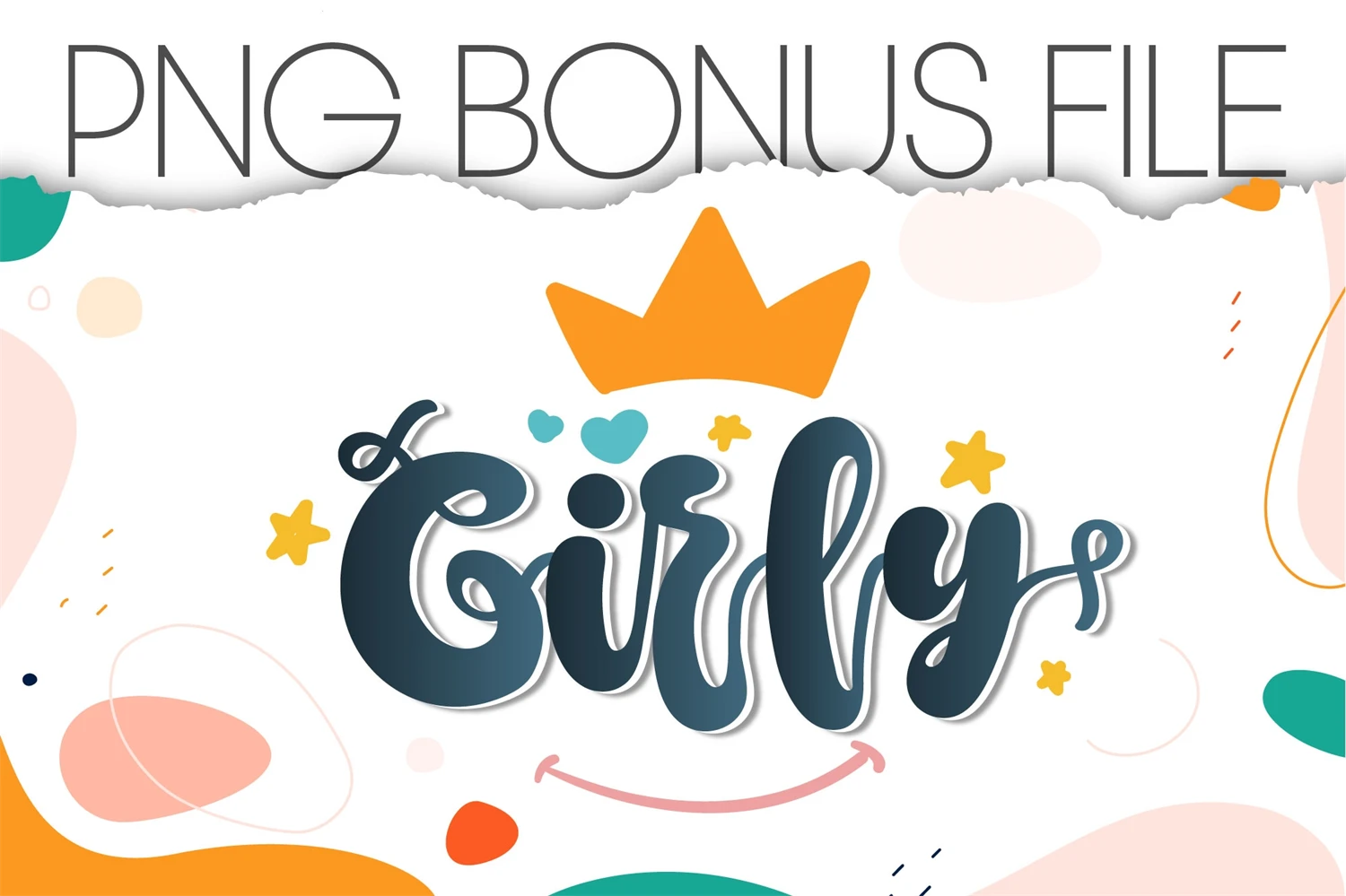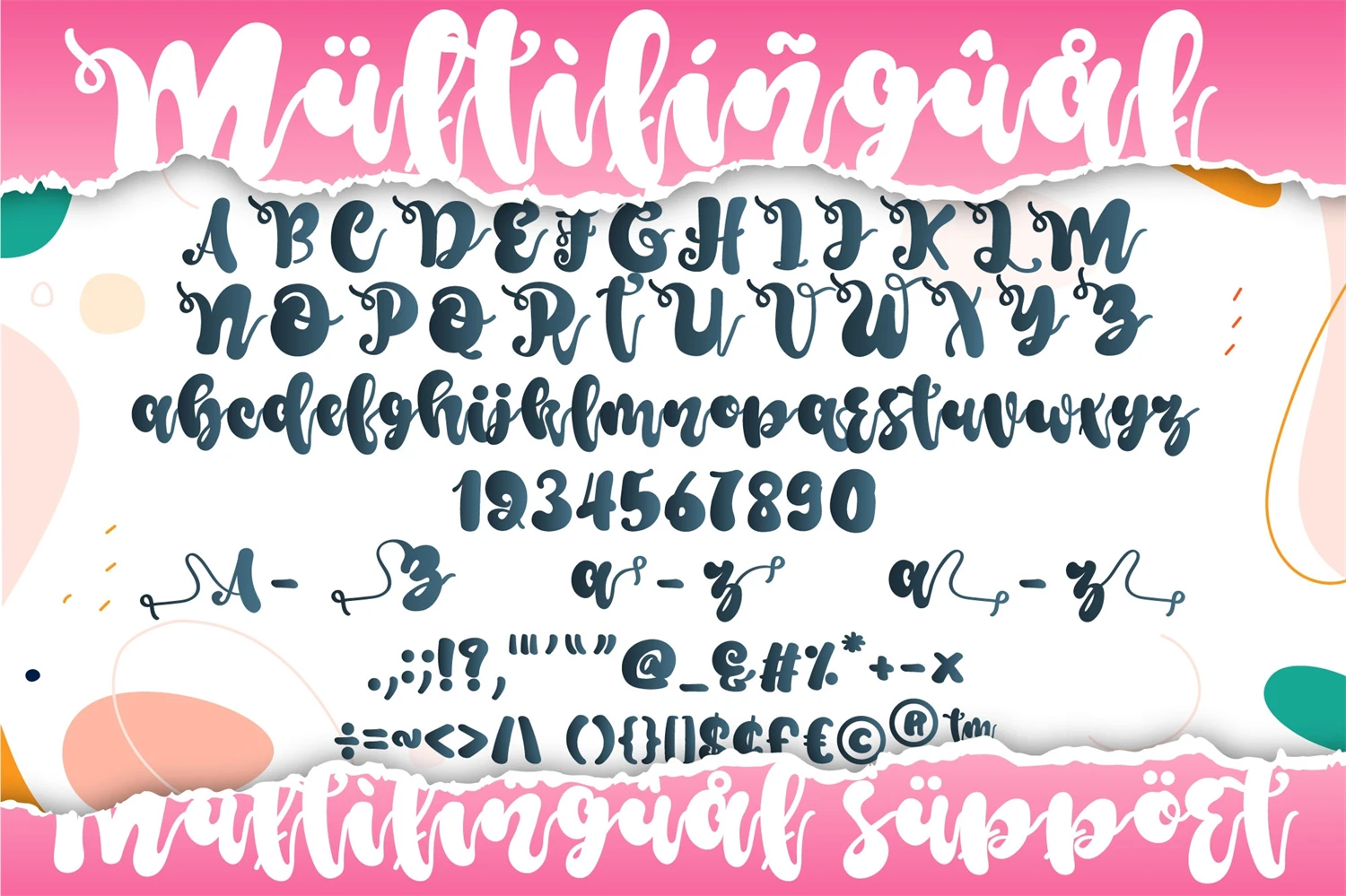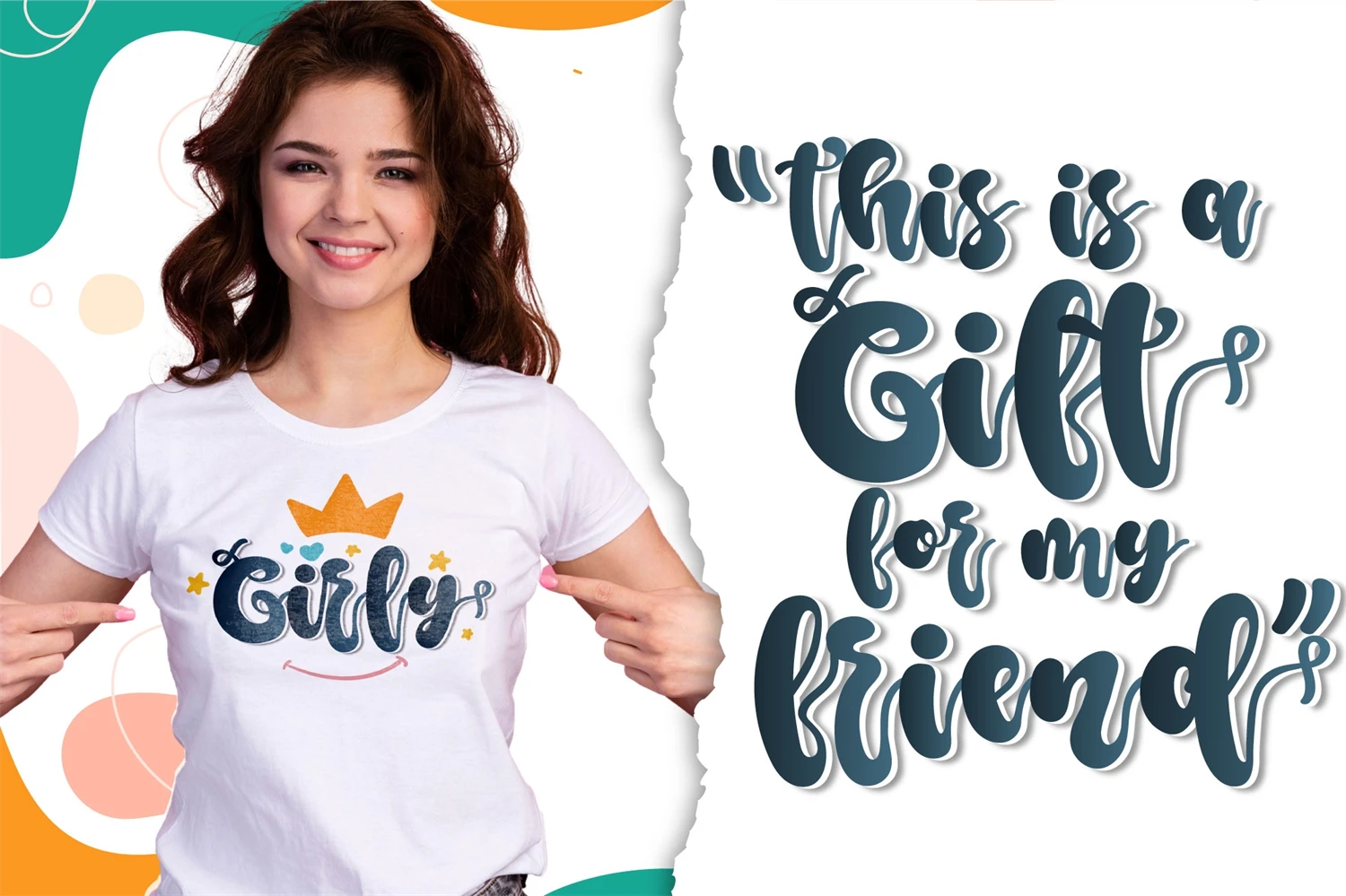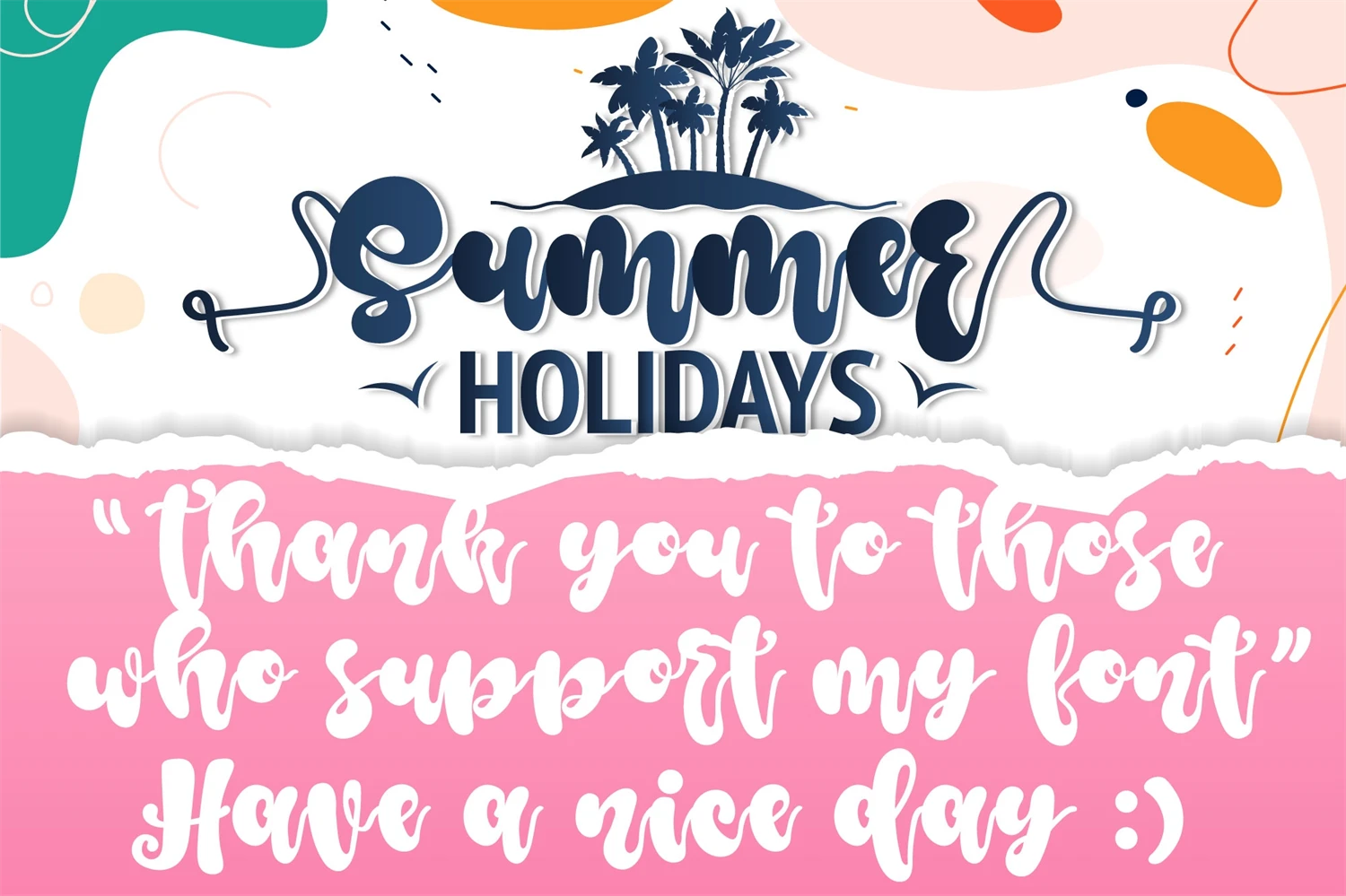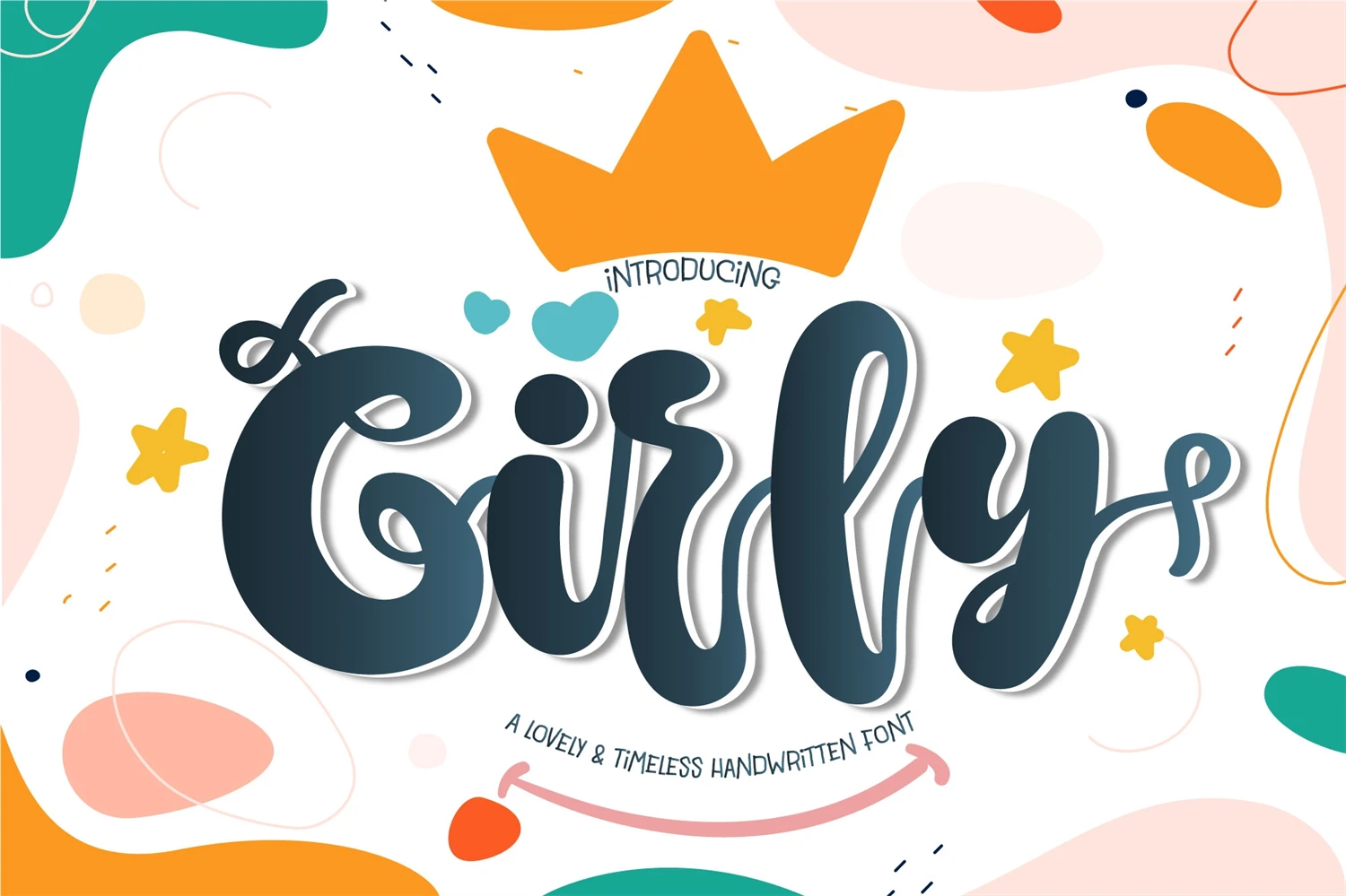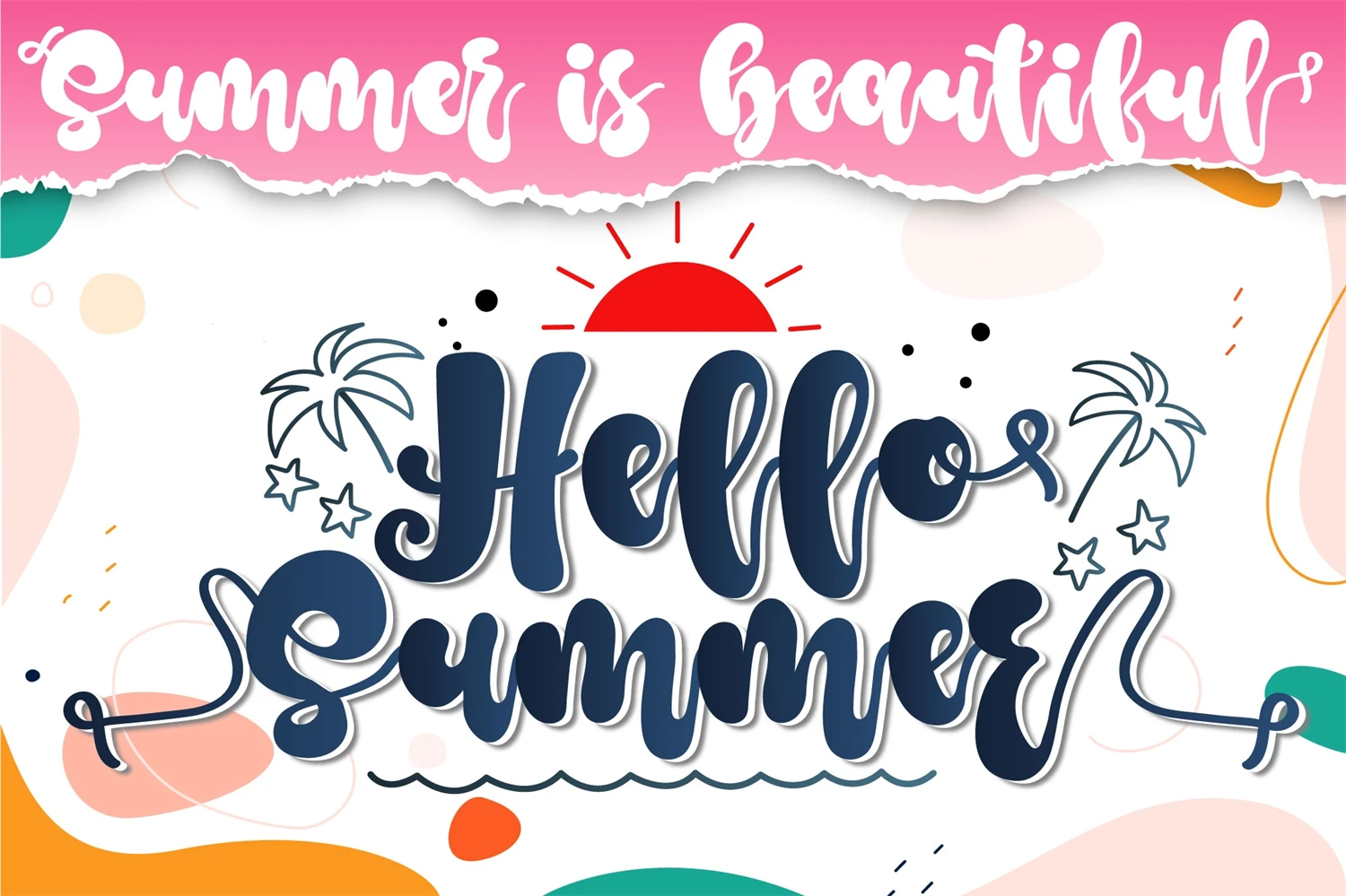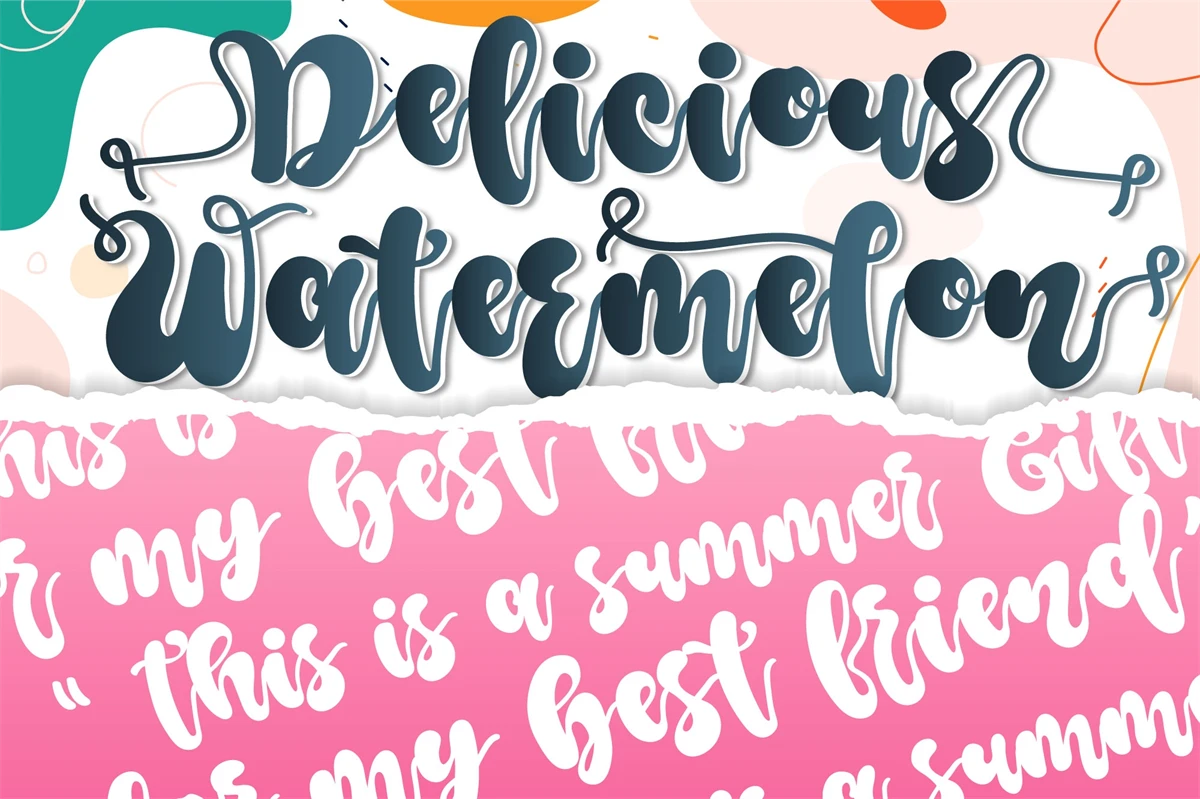
Girly Font is a lovely and timeless handwritten font that will add a touch of charm and elegance to your designs. This font is the perfect choice for creating eye-catching logos, branding materials, and beautiful quotes. Each letter in Girly Font has a unique and beautiful touch, bringing your designs to life with its captivating appeal. Whether you're working on a romantic wedding invitation, a whimsical poster, or a feminine blog header, Girly Font will effortlessly elevate your creations to a whole new level. Download Girly Font today and let your creativity soar!
Girly Font